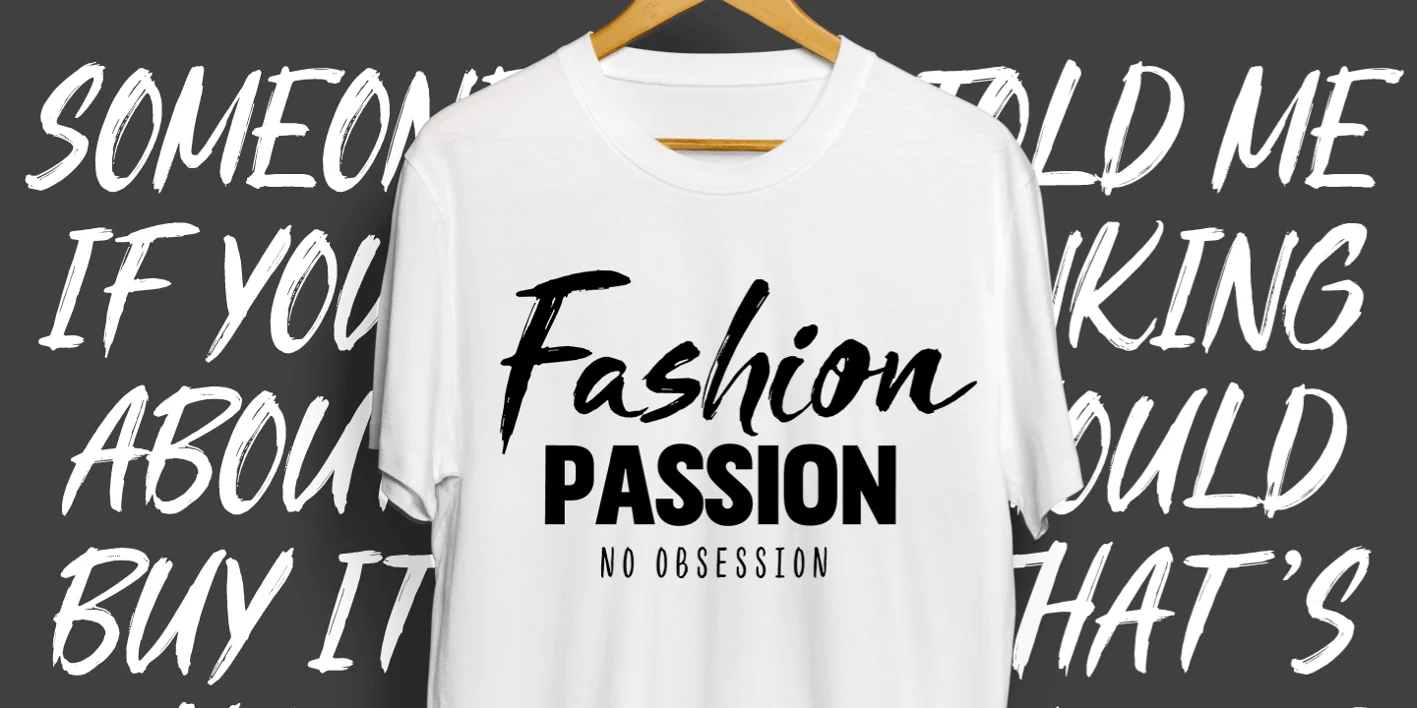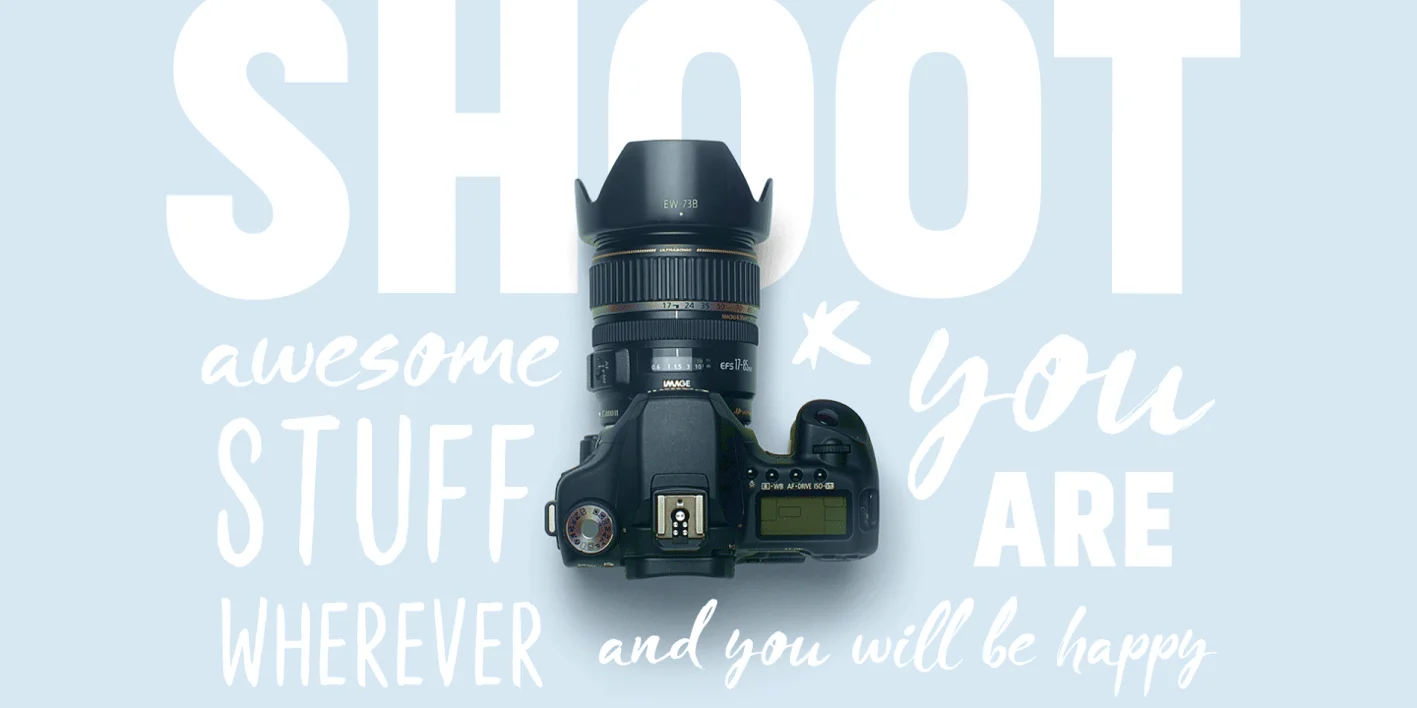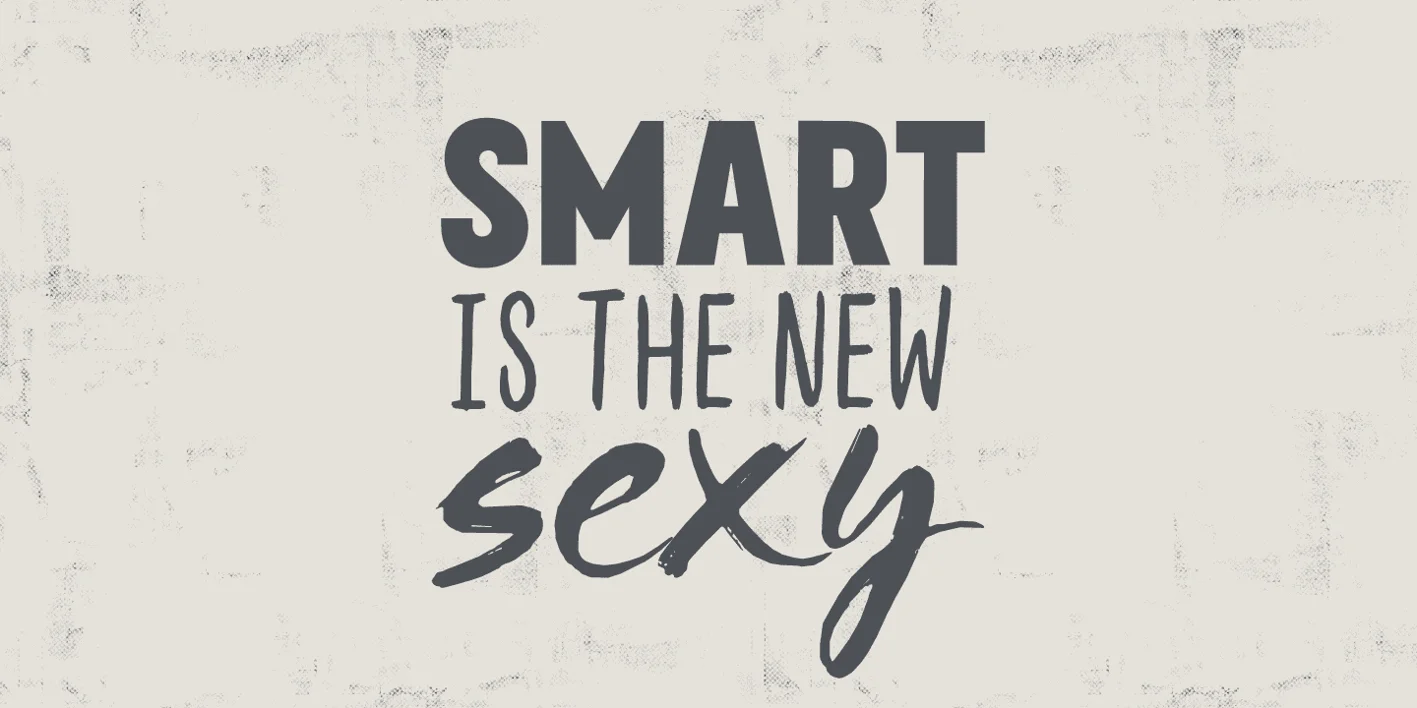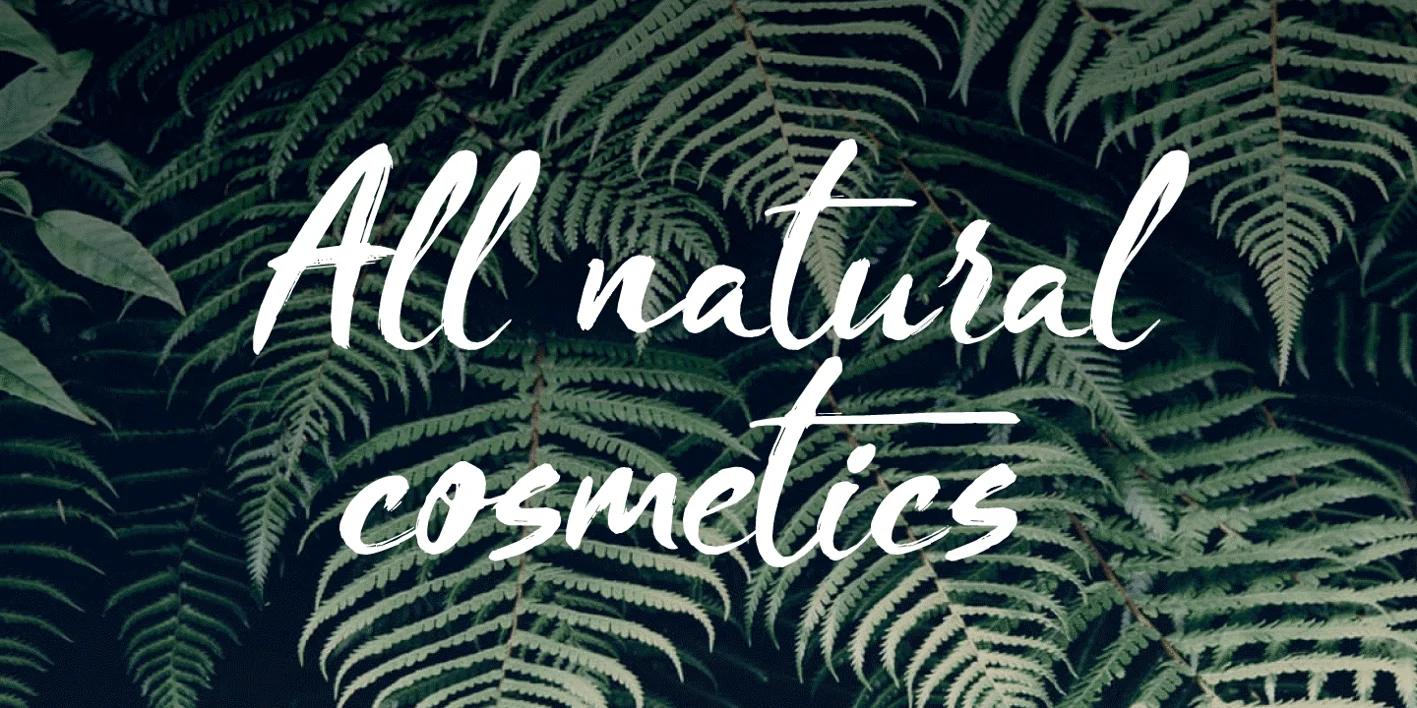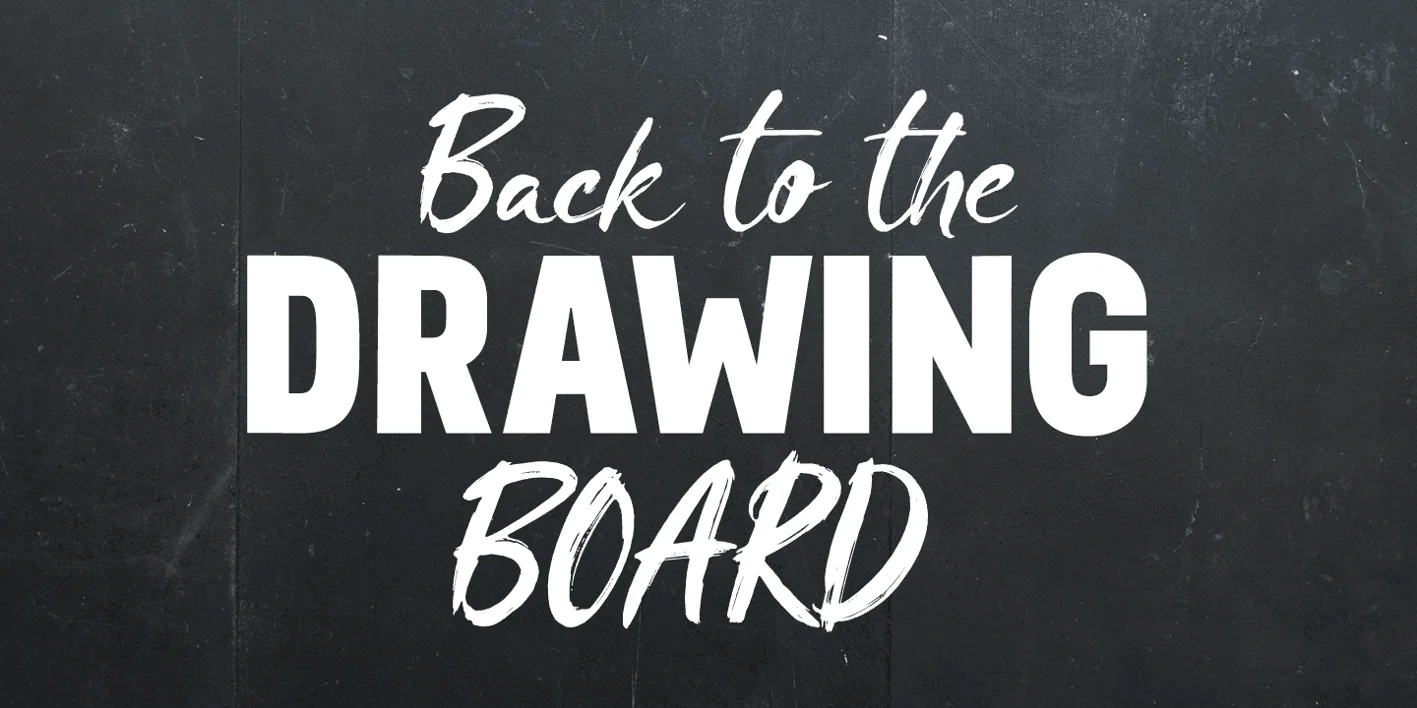
Blooms Font
When a design brief calls for both the kind of restraint that lets content lead and immediate visual impact, type choices matter — Blooms answers that brief. The typeface brings an elegant, calligraphic sensibility to a broad range of creative disciplines, with consistent type colour across continuous text that holds up whether the work is print-first or screen-first.
In practice, Blooms proves particularly effective for environmental graphics, annual reports, perfume labels, editorial layouts, greeting cards. Designers reaching for it find that the type decisions feel resolved rather than laboured — a useful quality when client timelines are tight.
Ascenders and descenders are drawn with generous extents that give the script its characteristic rhythm. Ligature pairs have been individually tested to prevent collisions, and the baseline is slightly bounced to suggest a natural, unhurried hand.
The range of applications extends to luxury stationery, fragrance labels, packaging design, feminine branding. That breadth is deliberate: the proportions and spacing were stress-tested across a wide range of mock briefs before the typeface was finalised.
Brand strategists building visual languages find Blooms a reliable choice for projects that demand both personality and restraint. The design avoids the self-conscious quirkiness that dates quickly, settling instead for considered distinctiveness that holds up over time.